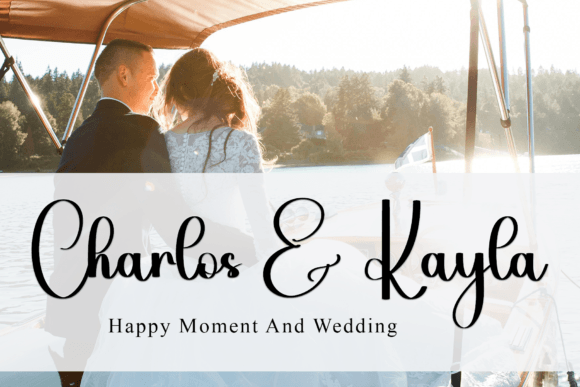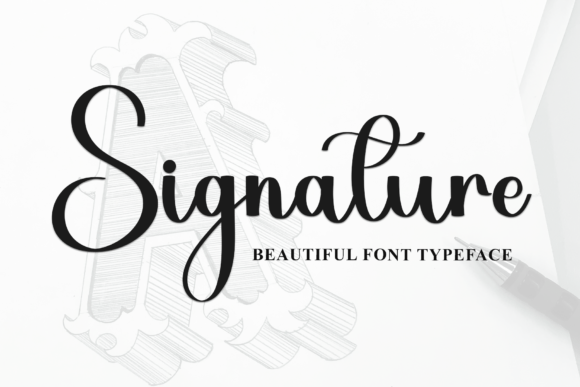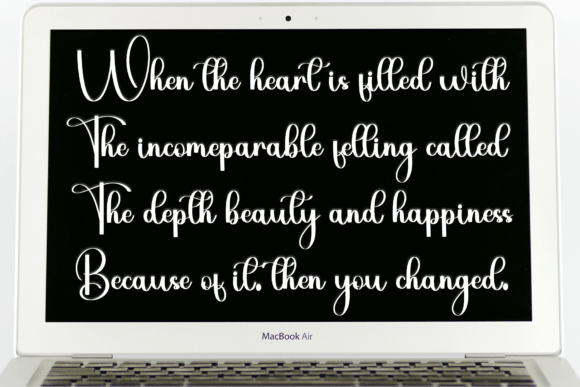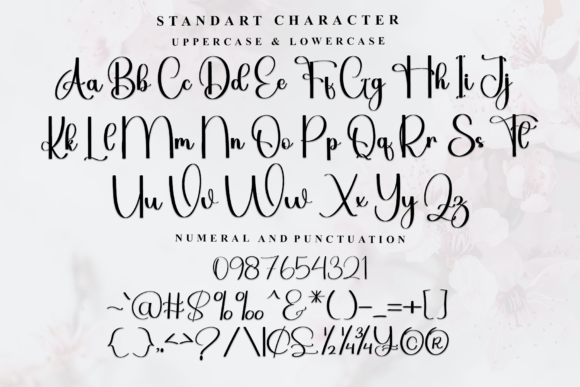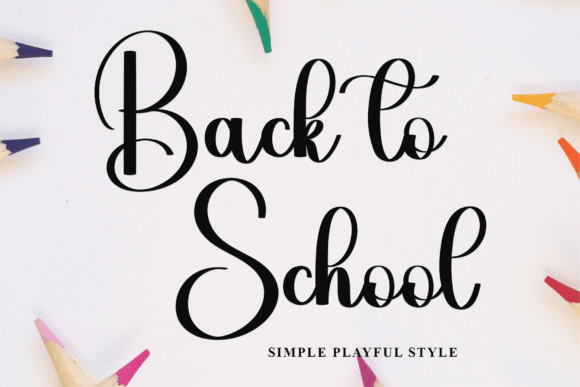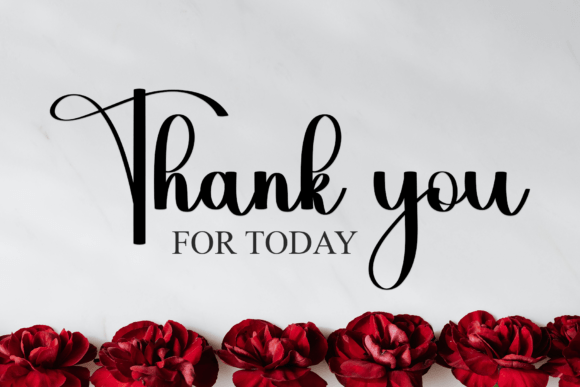
The Magic of Deary Samantha Font: Bringing Holiday Cheer to Your Designs
As the snowflakes start to fall and the twinkling lights adorn the houses, I find myself sitting at my desk, surrounded by the soft glow of fairy lights, brainstorming ideas for the holiday season. The crunch of wrapping paper, the sound of jingling bells, and the scent of pine wafting through the air – it’s the perfect time to get creative and infuse some festive magic into our designs.
That’s where Deary Samantha Font comes in – a delightful, merry typeface that captures the essence of the holiday season. With its whimsical flair and decorative elements, it adds a touch of enchantment to any design, making it perfect for greeting cards, gift tags, and holiday-themed projects. As a designer, you’ll appreciate the value of Deary Samantha Font, which not only brings a cheerful ambiance to your words but also offers PUA encoding, making it easy to access its amazing glyphs and ligatures.
Deary Samantha Font Key Features
- Font Family: Deary Samantha, Deary Samantha Bold, Deary Samantha Italic, Deary Samantha Bold Italic
- Unique Characteristics: The Deary Samantha font features a unique, elegant script style with a mix of cursive and handwritten elements, making it suitable for various design applications.
- Language Support: The font supports a wide range of languages, including Latin, Cyrillic, Greek, and many others, making it a versatile choice for global design projects.
Deary Samantha Font Review
Overall, I think Deary Samantha Font is a solid choice for designers looking for a elegant and sophisticated font. Here are some things that work well:
- ✨ Unique and whimsical design: The font’s intricate details and flourishes make it stand out from more traditional serif fonts.
- ✨ High legibility: Despite its ornate design, Deary Samantha is still easy to read, even at smaller font sizes.
- ✨ Versatile: The font comes in a range of weights and styles, making it suitable for a variety of applications, from body text to headlines.
- ⚠️ Limited language support: Deary Samantha Font may not be suitable for languages that require a wide range of glyphs, such as Chinese or Japanese.
- ⚠️ May not be suitable for digital use: The font’s intricate details may not scale well at small font sizes, and may appear blurry or pixelated on screens.
Overall, I think Deary Samantha Font is a great choice for designers who want to add a touch of elegance and sophistication to their designs. Just be sure to consider its limitations and use it judiciously.
Deary Samantha Font is commonly used in:
- Create the wedding invitation’s title, “Save the Date”
- Write the couple’s names in a decorative script font
- Highlight important details like the date, time, and location in bold font
- Watercolor floral patterns to create a whimsical and romantic atmosphere
- Gold foil accents to add a touch of luxury and sophistication
- Soft pastel colors to create a dreamy and ethereal feel
- Create the blog’s title, “My Journal”
- Write the blog’s tagline, “Stories from my heart”
- Highlight important categories like “Travel” and “Food” in bold font
Create a unique and eye-catching wedding invitation that reflects the couple’s personality. The Deary Samantha Font will add a touch of elegance and sophistication to the design.
Use the Deary Samantha Font to:
Combine the Deary Samantha Font with:
Project 2: Vintage-Inspired Blog Header
Create a unique and eye-catching blog header that reflects your personal style. The Deary Samantha Font will add a touch of elegance and sophistication to your blog’s design.
Use the Deary Samantha Font to:
Combine the Deary Samantha Font with: